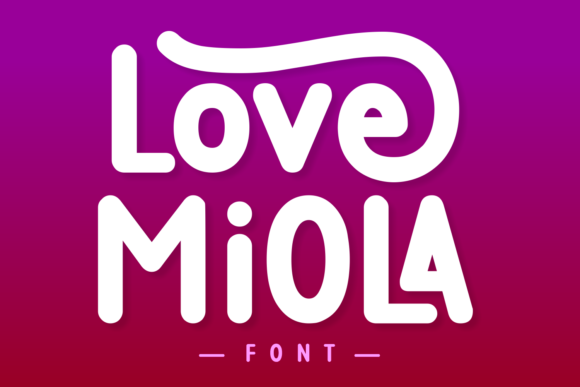
Behold the enchanting Love Miola Font, where elegance and distinction intertwine to create a captivating display font that will leave your audience breathless. Step into a realm of visual artistry where your words leap off the page, emanating an aura of sophistication and charm. Crafted by the masters at Creative Fabrica Fonts, Love Miola is not just a font; it's a gateway to boundless creativity.
Unleash your imagination and paint your ideas onto banners, posters, covers, and marketing materials, and watch as they ignite with a vibrant energy. Let your creativity flourish on product packaging and other design endeavors, where Love Miola's bold presence commands attention and leaves an unforgettable impression. The results will be nothing short of mesmerizing, a testament to the transformative power of typography.
Love Miola is not merely a font; it's an experience that invites you to explore the depths of your creativity. Its meticulously crafted characters exude grace and personality, beckoning you to craft designs that captivate and inspire. Whether you're a seasoned designer or just beginning your journey into the world of typography, Love Miola is your perfect companion, guiding you towards artistry and excellence.
So, dear visionaries and wordsmiths, embrace the allure of Love Miola and embark on a creative odyssey where your imagination knows no bounds. Let your designs flourish with the beauty and boldness of this remarkable font, and witness the transformation of ordinary words into captivating masterpieces. Love Miola awaits, ready to ignite the fire of your creativity and leave an indelible mark on the world of visual expression.